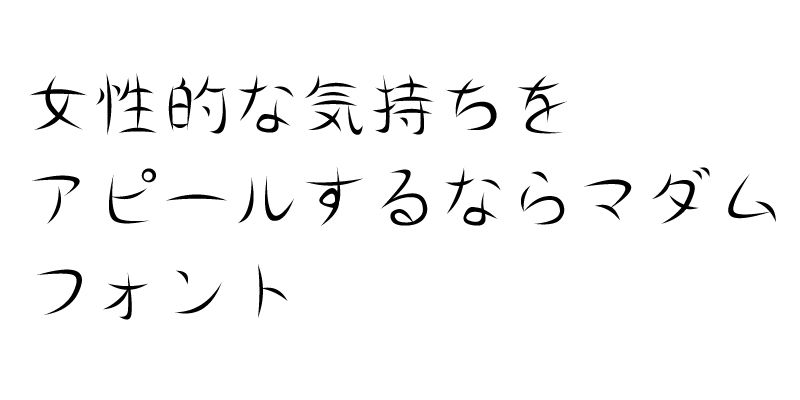
TA Madam Font Free Download
TA Madam Font Free Download is a stylish, elegant, and versatile script typeface that combines modern sophistication with a touch of vintage charm. The name "Madam" evokes a sense of grace, refinement, and timeless beauty, making it a perfect choice for luxury branding, invitations, editorial designs, and high-end event signage.
TA Madam Font Free Download features smooth curves, flowing strokes, and intricate details that bring an air of elegance to any design. Whether you're designing a logo, a wedding invitation, or packaging for a luxury product, this font adds an element of sophistication and femininity while maintaining strong readability and clarity.
The font includes support for both Latin characters and stylized elements, making it ideal for bilingual projects or designs that blend Western and cultural elements.
Elegant, refined, and timeless—TA Madam Font is your go-to typeface for designs that need to exude grace and high-class appeal.